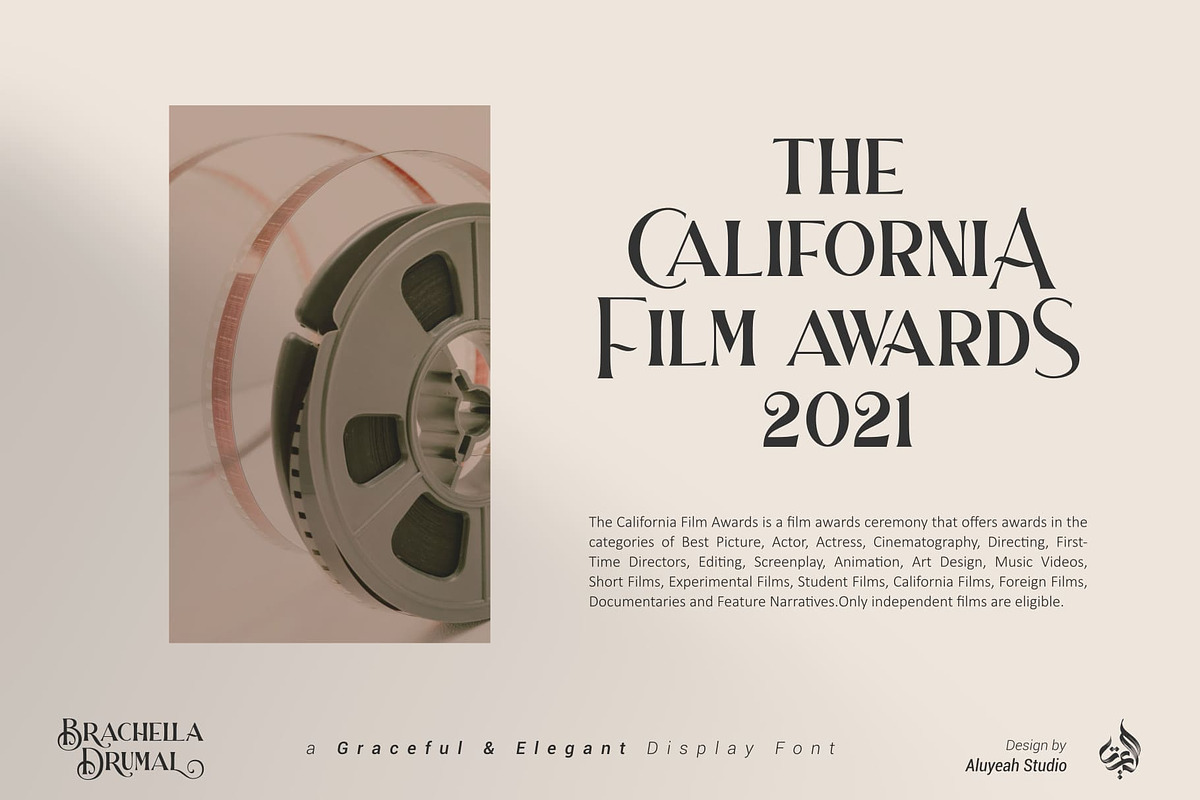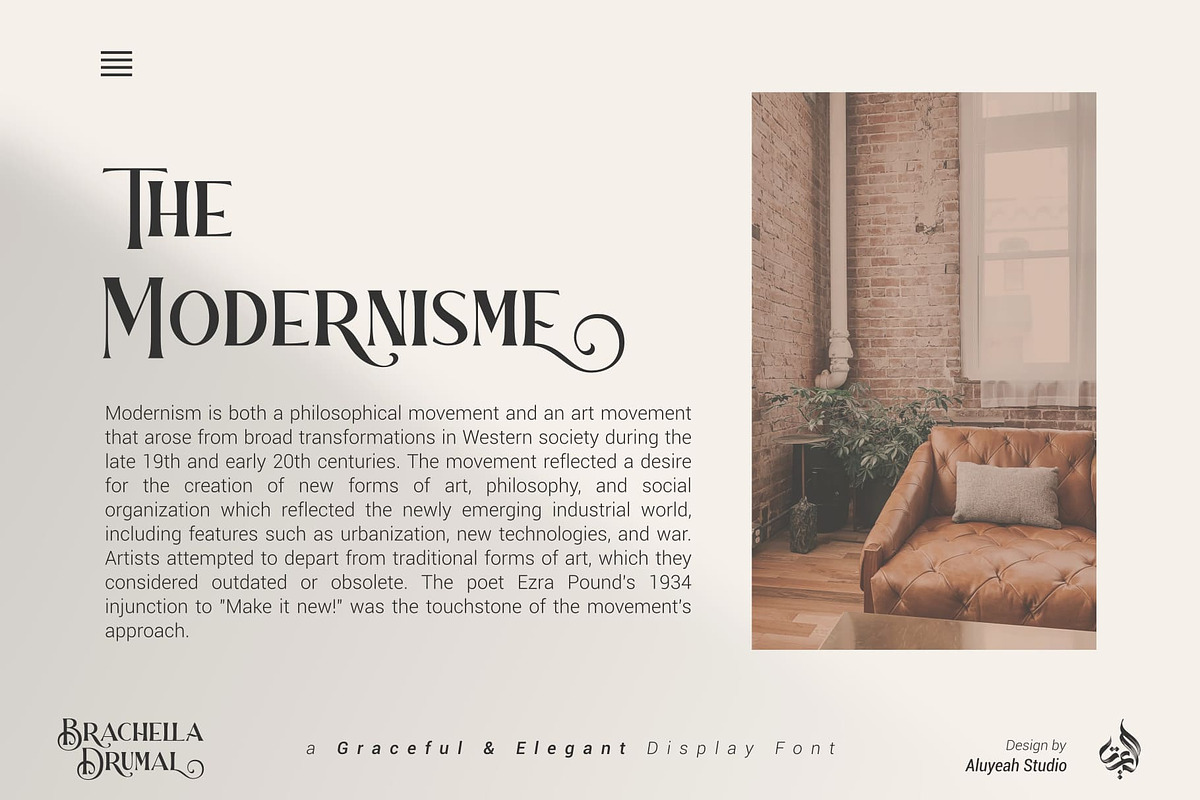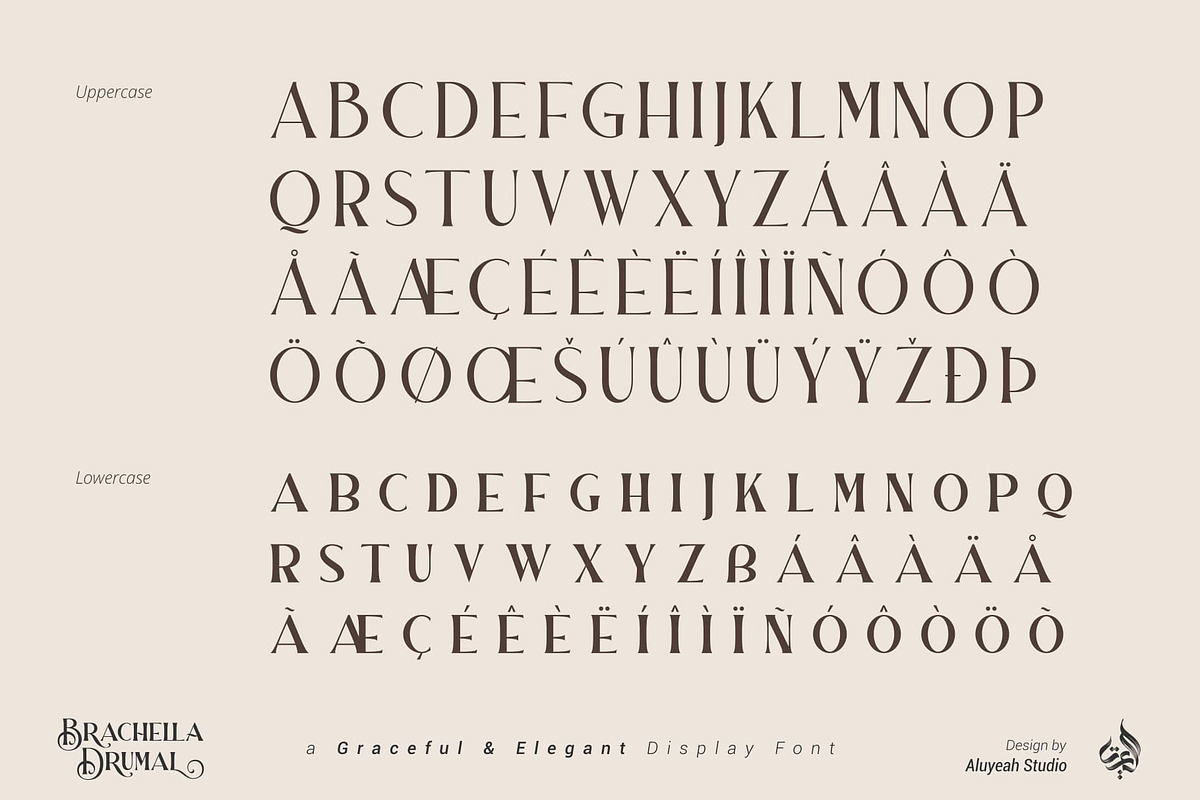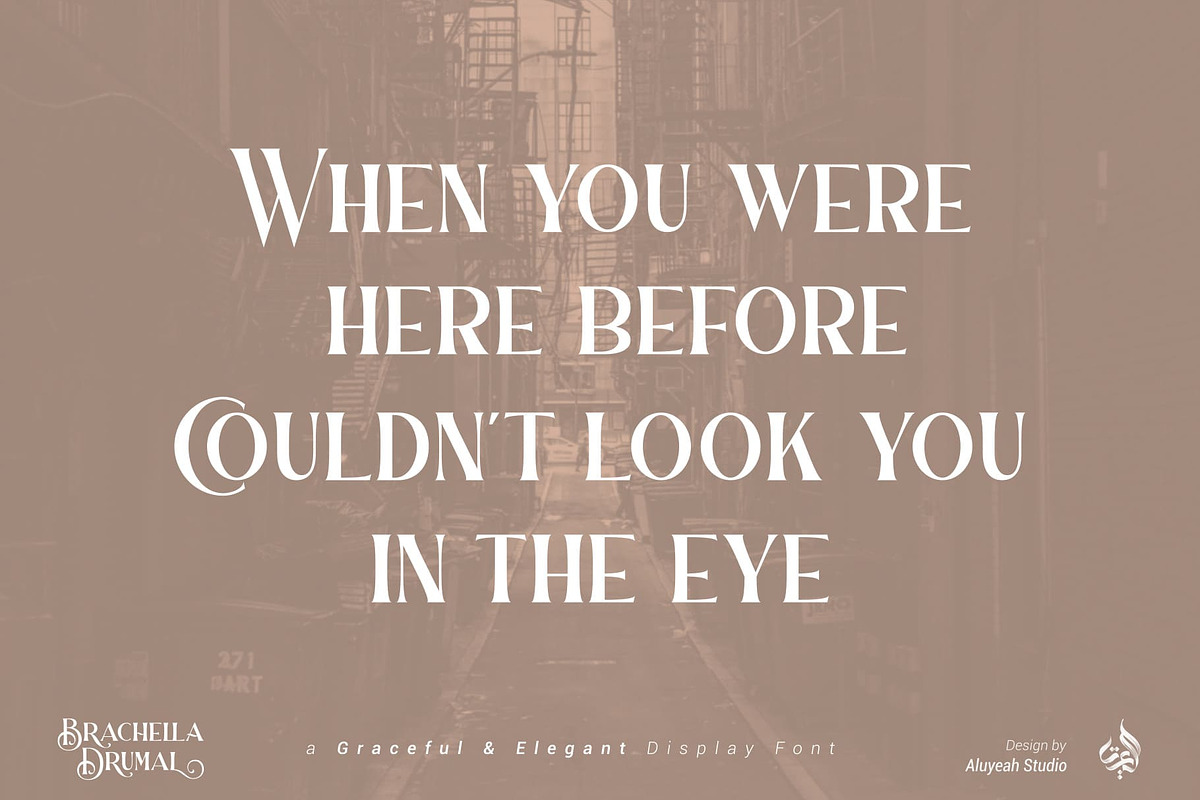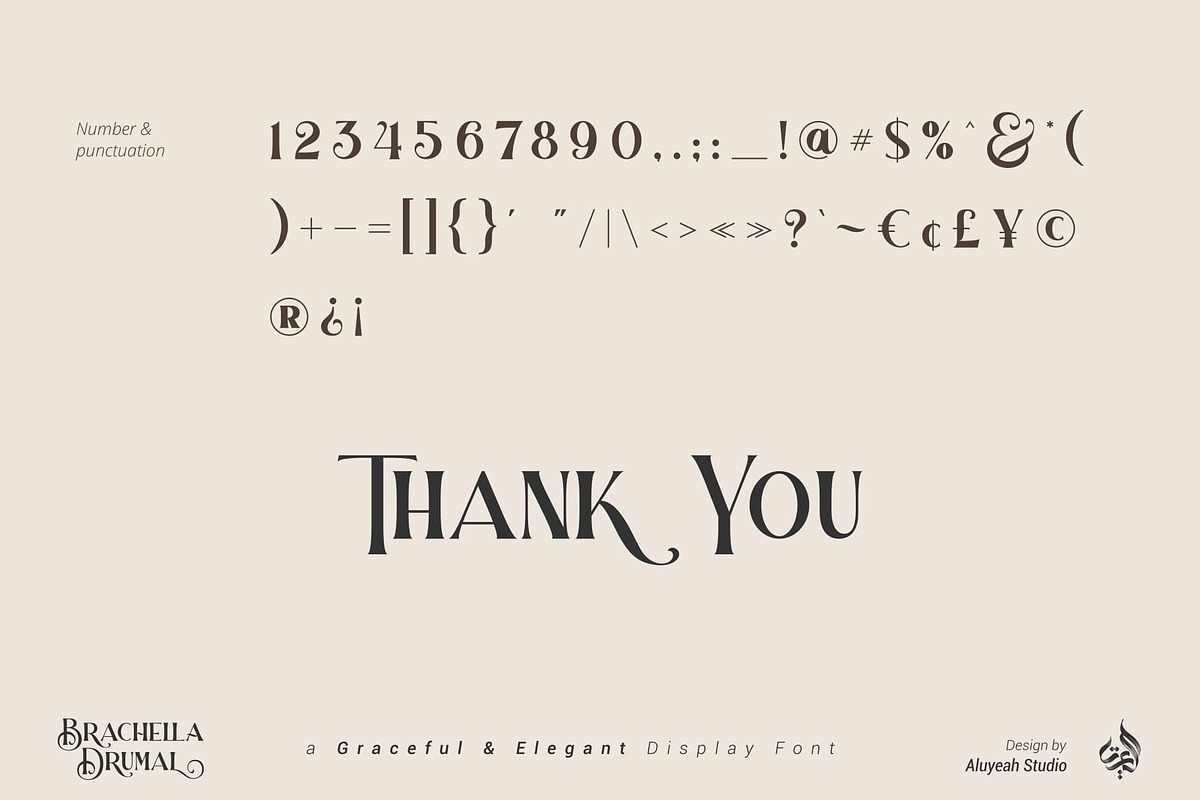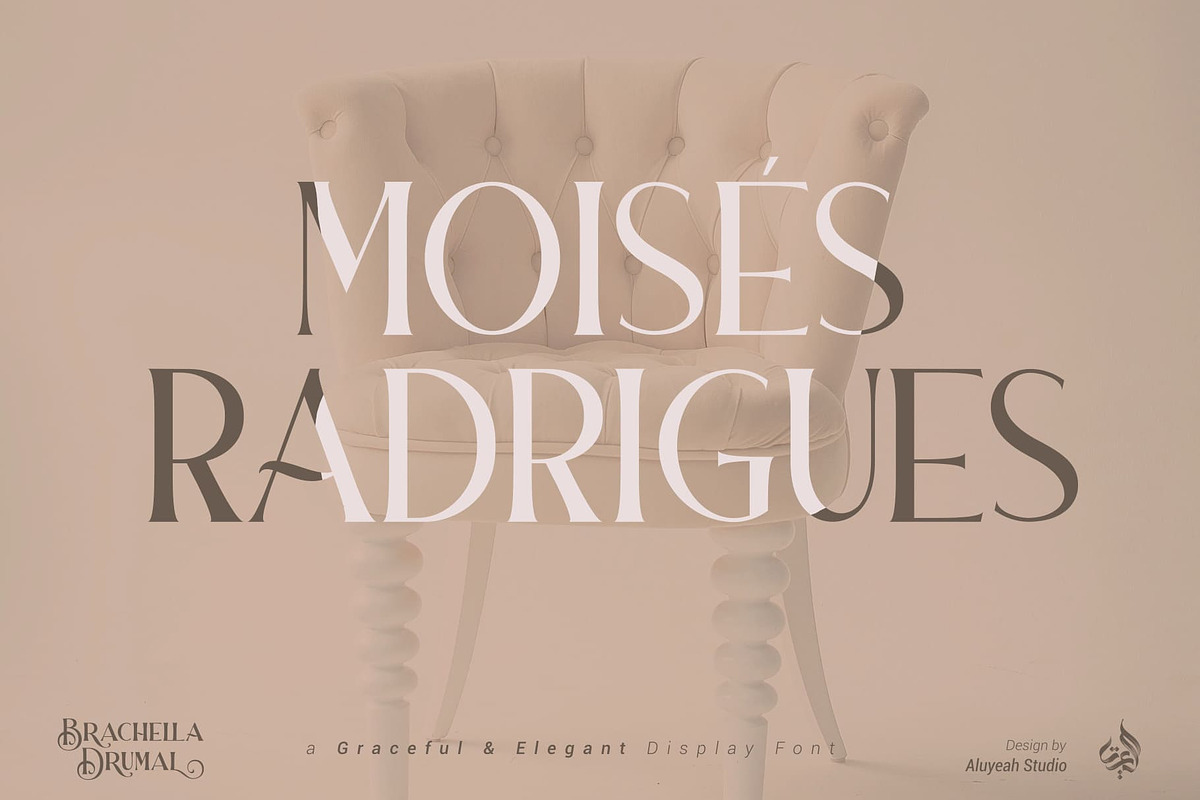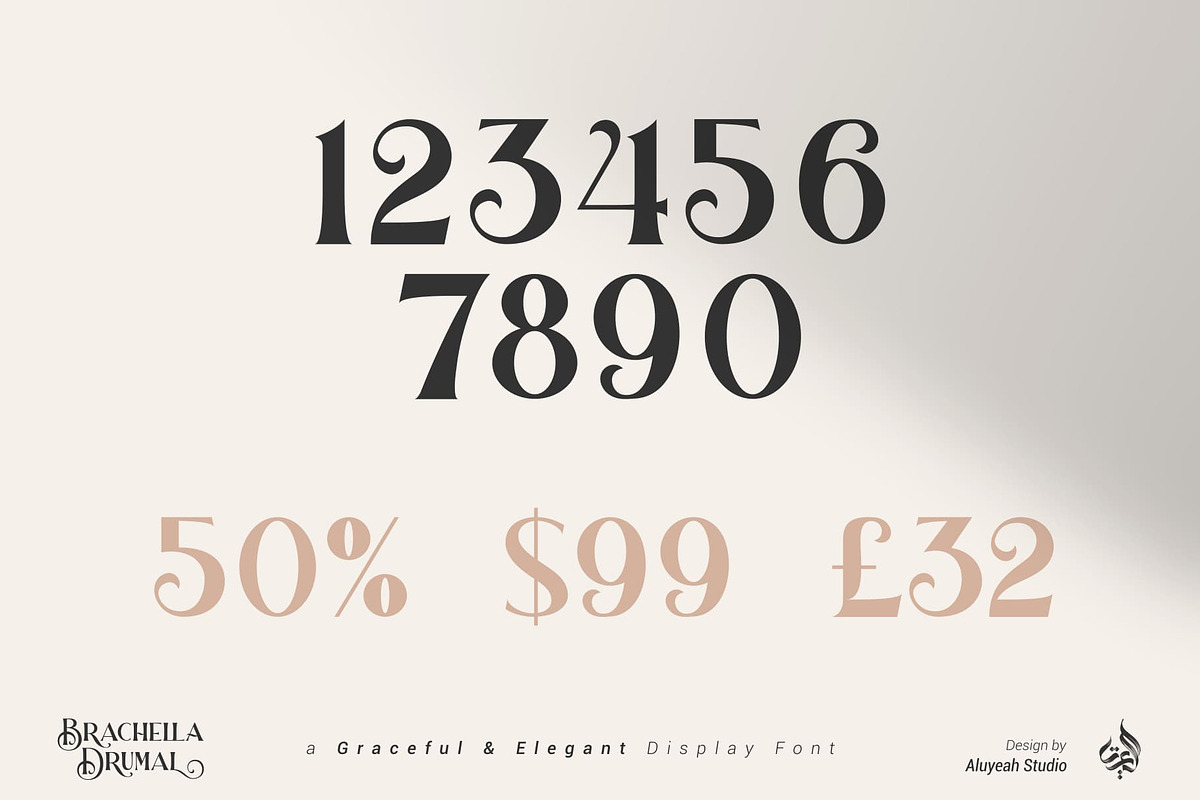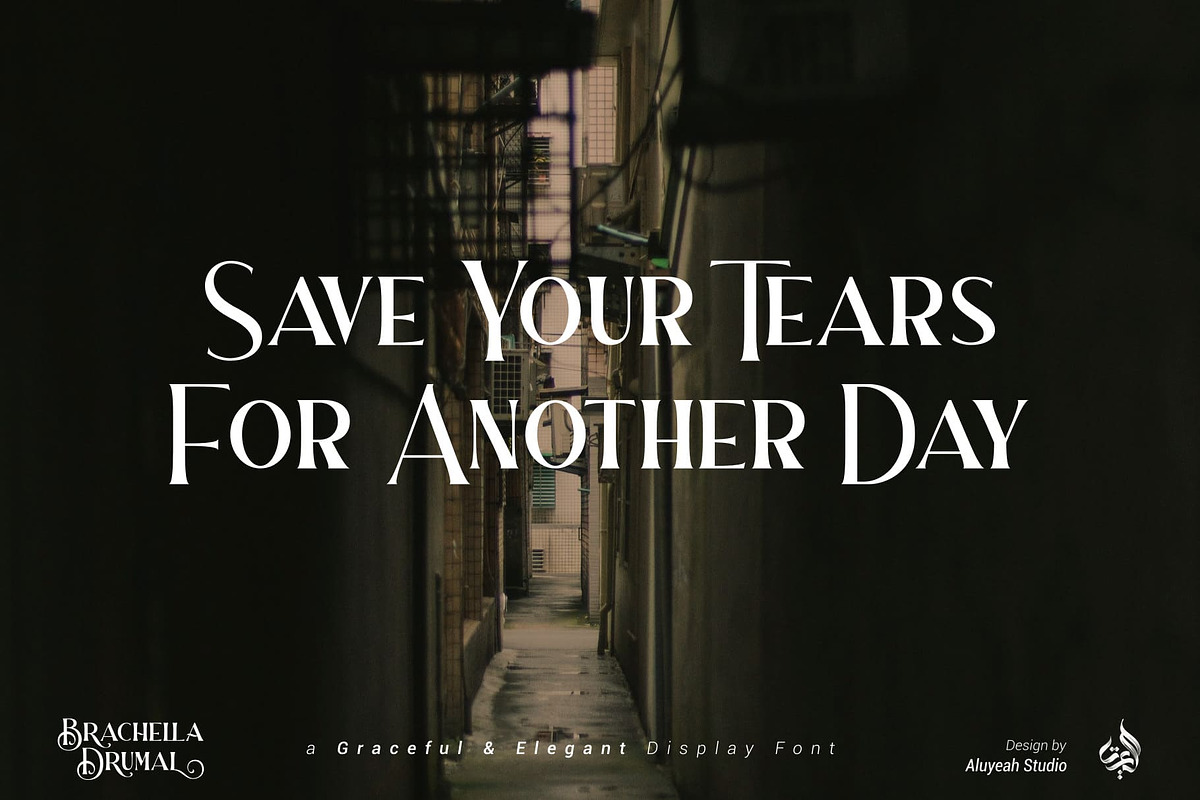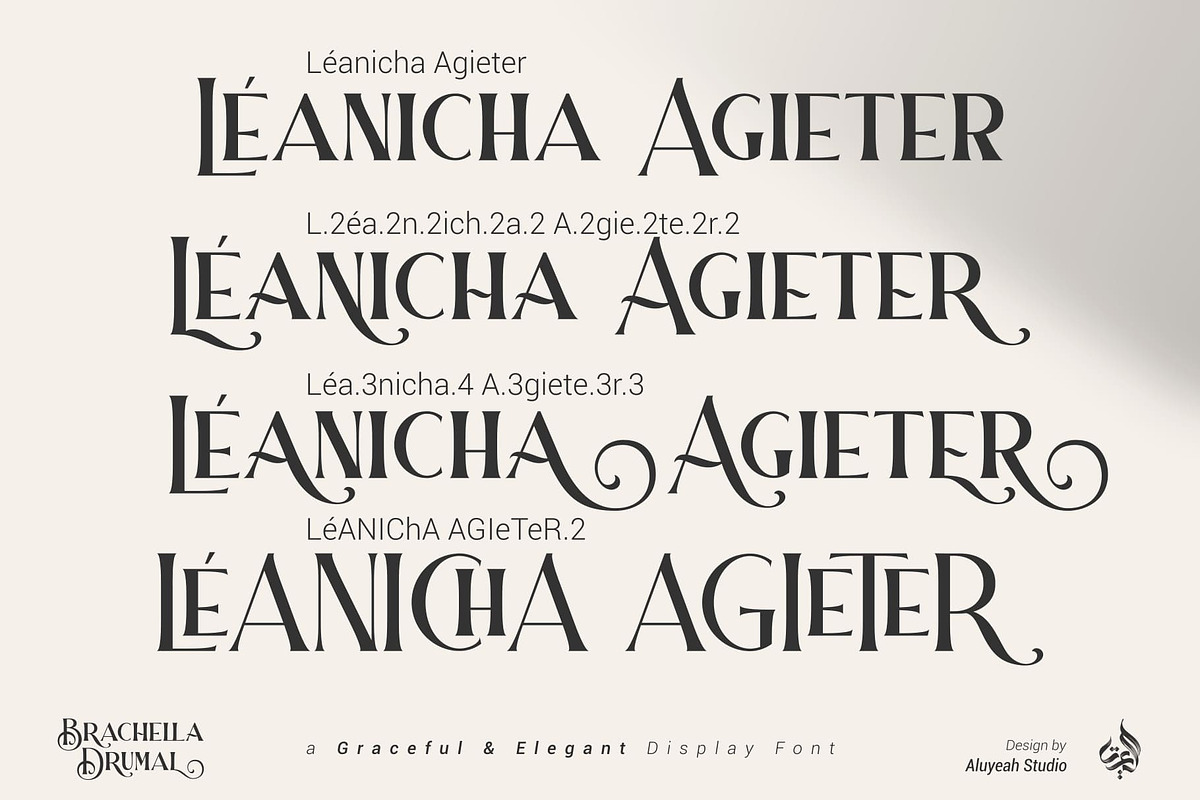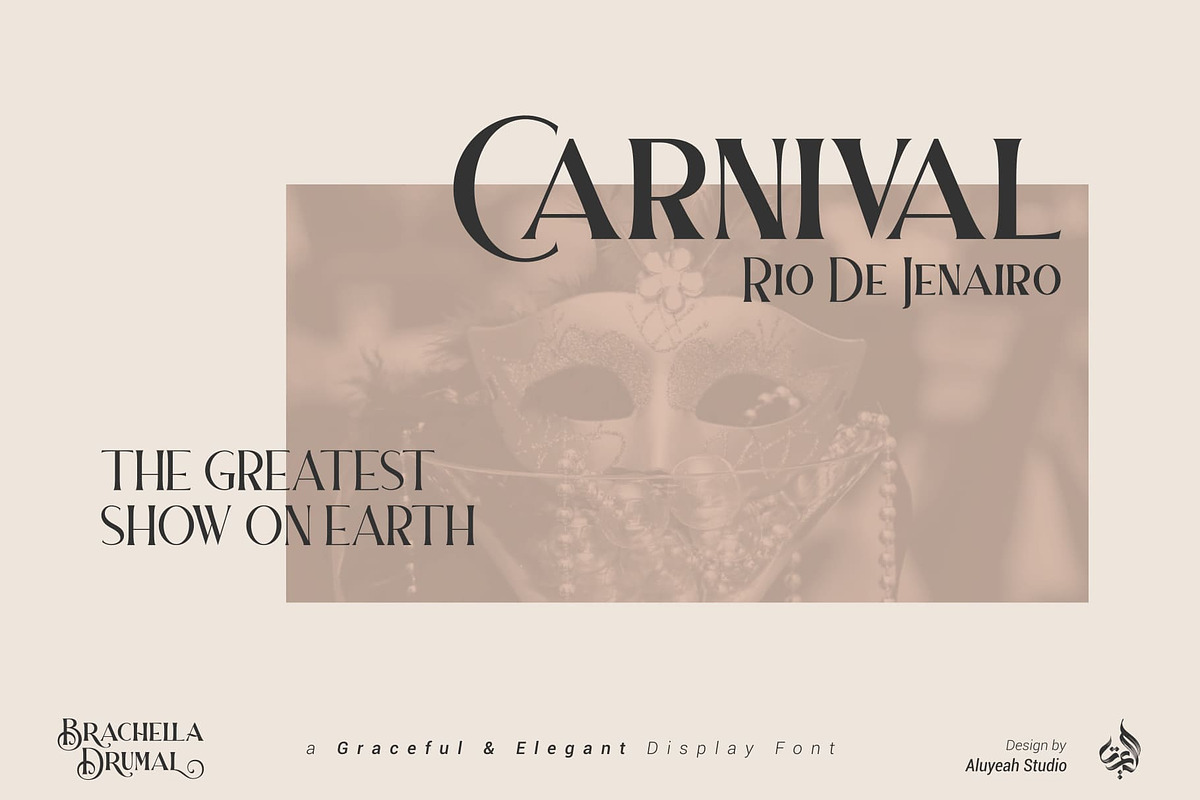
Brachella Drumal
Brachella Drumal, a Graceful and Elegant Display Font
Coming to you with 30+ stunning alternate and ligature to create a perfectly mystical, beautiful, classy, elegant design.
- Super Easy to Use alternates – It’s OpenType support but you can easily call alternates character using special combination like A.2 B.2 k.2 etc. so you don’t need special software.
To get results like the preview just type B.2r.2ach.2ella.2 D.2r.2umal.3